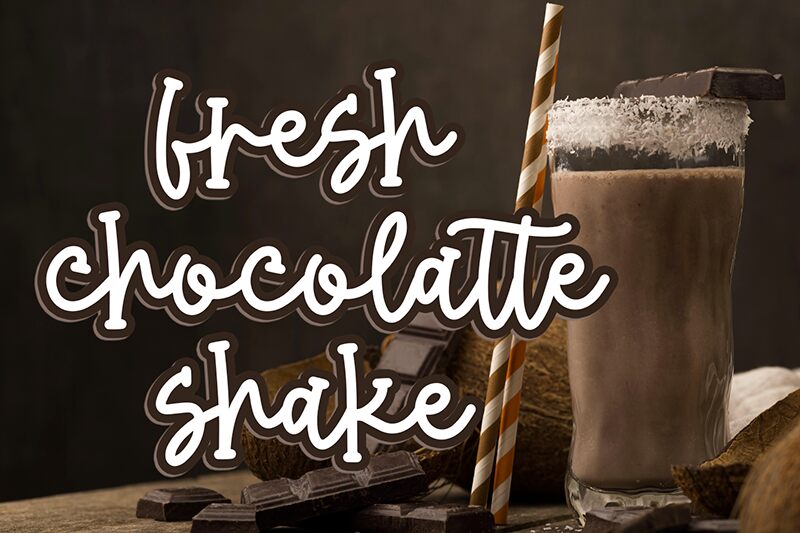
Quirky Fabrica
Introducing Quirky Fabrica – a cute handwritten font designed by Panggah Laksono @ Abo Daniel Studio. This light font is perfect for crafting creative projects such as children's books, posters, and invitations. Let your imagination run wild with Quirky Fabrica!
QUIRKY FABRICA
- crafty script with serif -